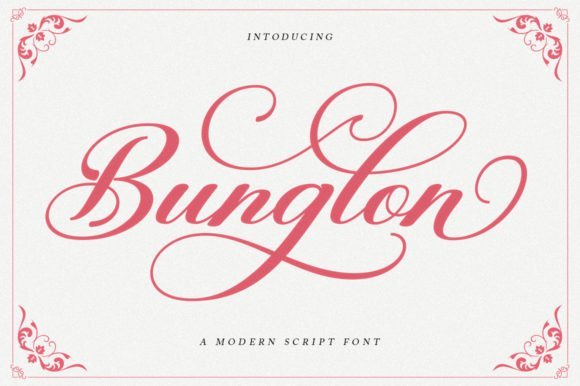
The Perfect Blend of Creativity and Elegance: Unveiling the Bunglon Font
There’s nothing quite like the feeling of discovering a new font that speaks to your creative soul. It’s that moment when you stumble upon a design that perfectly captures the essence of your vision, and you know that you’ve found something special. For designers, this moment is a treasure, and we’re excited to share with you a font that embodies the perfect blend of creativity and elegance – the Bunglon Font.
With its modern calligraphy design, the Bunglon Font is a versatile and beautiful addition to any project. Whether you’re crafting logos, product packaging, or wedding invitations, this font is sure to make a lasting impression. Its PUA-encoded feature allows designers to access a wide range of glyphs and ligatures with ease, making it a valuable asset for any creative professional.
Bunglon Font Key Features
- Font Family: Bunglon Font offers a unique and diverse range of font styles, making it suitable for various design applications.
- Character Count: The font family includes a large character set, covering multiple languages and scripts, including Latin, Cyrillic, and Greek alphabets.
- Resolution: Bunglon Font is designed for high-resolution displays, making it ideal for use in digital media, such as websites, mobile apps, and social media platforms.
- Unique Characteristics: The Bunglon Font features a distinctive, hand-drawn design aesthetic, with intricate details and ornaments, making it a standout choice for creative projects.
Bunglon Font Review
I’ve had the chance to work with Bunglon Font, and overall, I’m quite impressed with its capabilities. Here’s a breakdown of what I like and don’t like about this font.
- Unique Aesthetic: Bunglon Font offers a distinctive, exotic feel that can add a touch of elegance to your designs.
- High-Quality Rendering: The font renders beautifully, even at smaller sizes, making it suitable for a variety of projects.
- Flexibility: Bunglon Font is available in multiple weights and styles, allowing you to choose the perfect fit for your design.
- Legibility Issues: In some cases, the font’s unique design can make it difficult to read, especially at smaller sizes or in certain contexts.
- Limited Character Set: Bunglon Font may not support all languages or special characters, which can be a limitation for designers working on global projects.
Bunglon Font is a solid choice for designers looking to add a touch of sophistication to their projects. While it has its limitations, the font’s unique aesthetic and high-quality rendering make it a worthwhile investment. I’d recommend it for projects where the font’s distinctive feel is a good fit, but be cautious when using it in contexts where legibility is a concern.
The Bunglon font is ideal for:
- Graphic design projects that require a unique and elegant touch.
- Logos and branding materials that need a distinctive font.
- Editorial and publishing projects that require a sophisticated font.
Alternatives to Bunglon Font for Designers
Great Vibes Font is a modern, elegant script font that is ideal for titles, headings, and short paragraphs. It is perfect for designers who want to add a touch of sophistication to their designs.
Compared to Bunglon Font, Great Vibes Font has a more refined and polished look, making it suitable for high-end designs. While Bunglon Font has a more playful and casual feel, Great Vibes Font is better suited for formal and professional projects.
Dancing Script Font is a beautiful, handwritten font that is perfect for adding a touch of personality to designs. It is ideal for titles, headings, and short paragraphs, and is particularly well-suited for designs that require a sense of movement and energy.
Compared to Bunglon Font, Dancing Script Font has a more fluid and dynamic feel, making it suitable for designs that require a sense of movement and energy. While Bunglon Font has a more playful and casual feel, Dancing Script Font is better suited for designs that require a sense of sophistication and elegance.